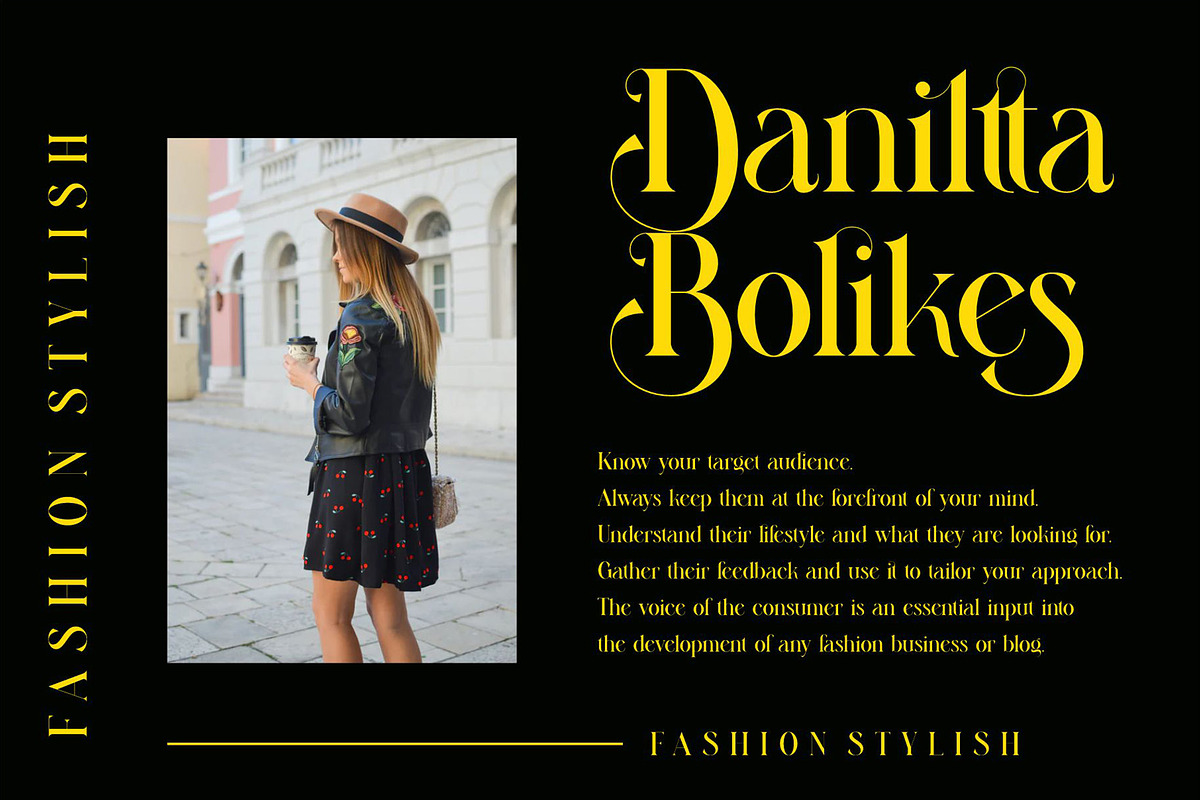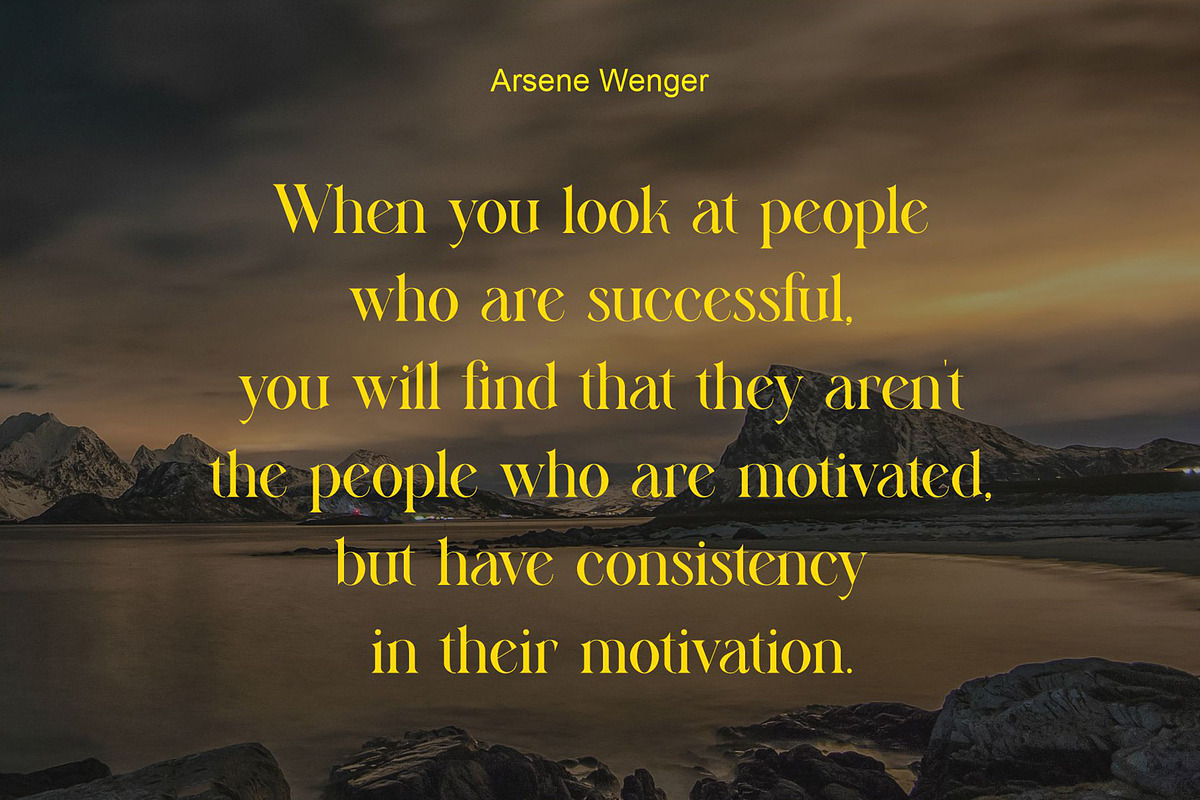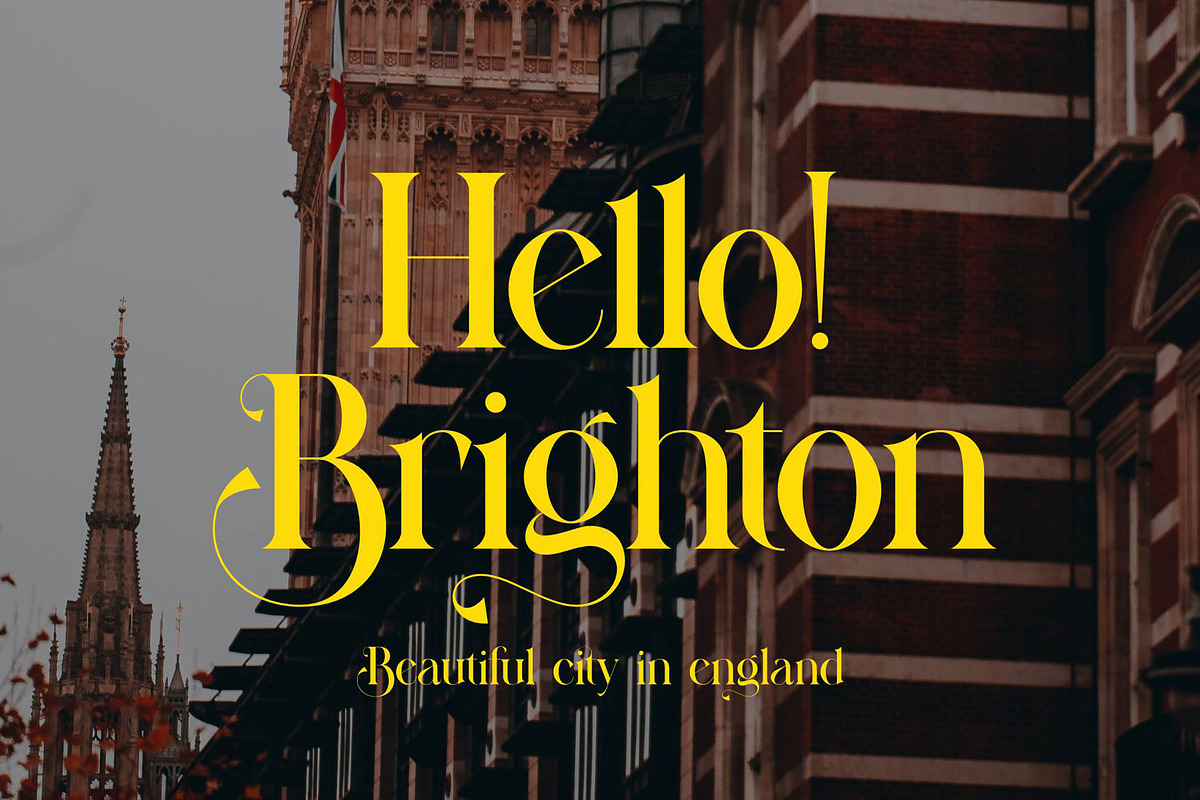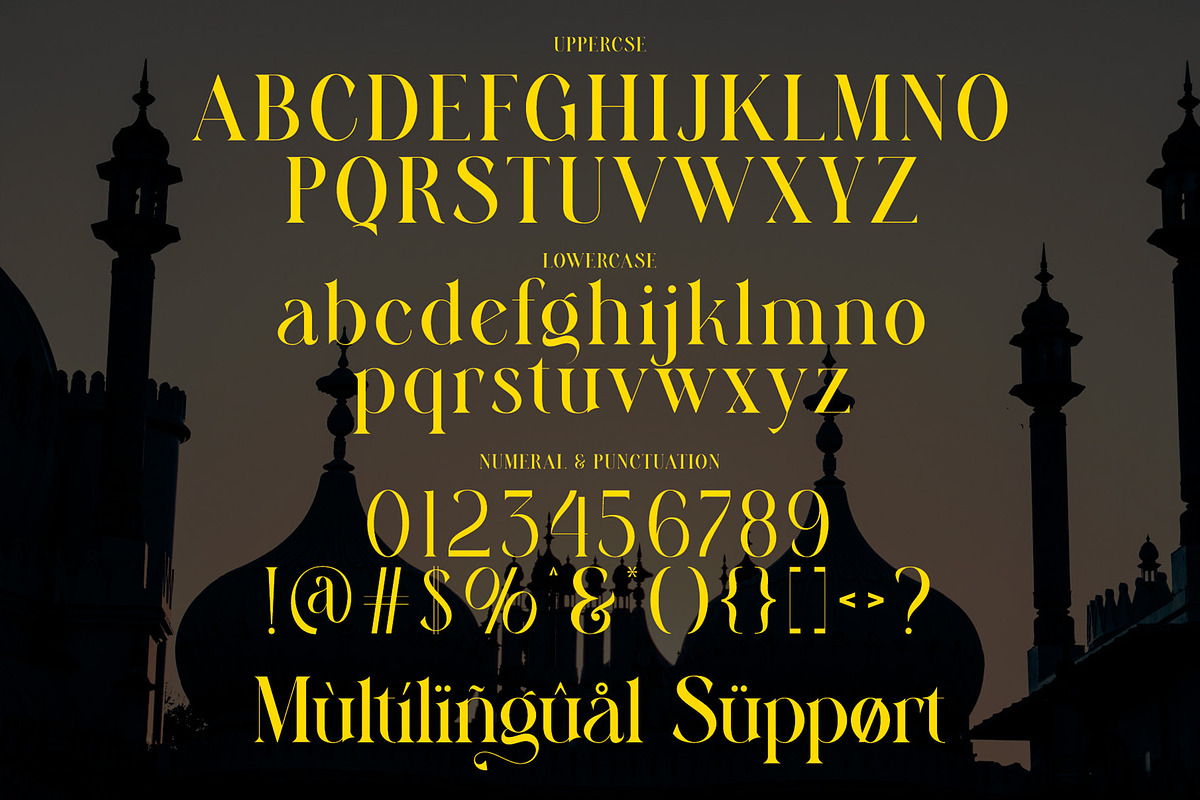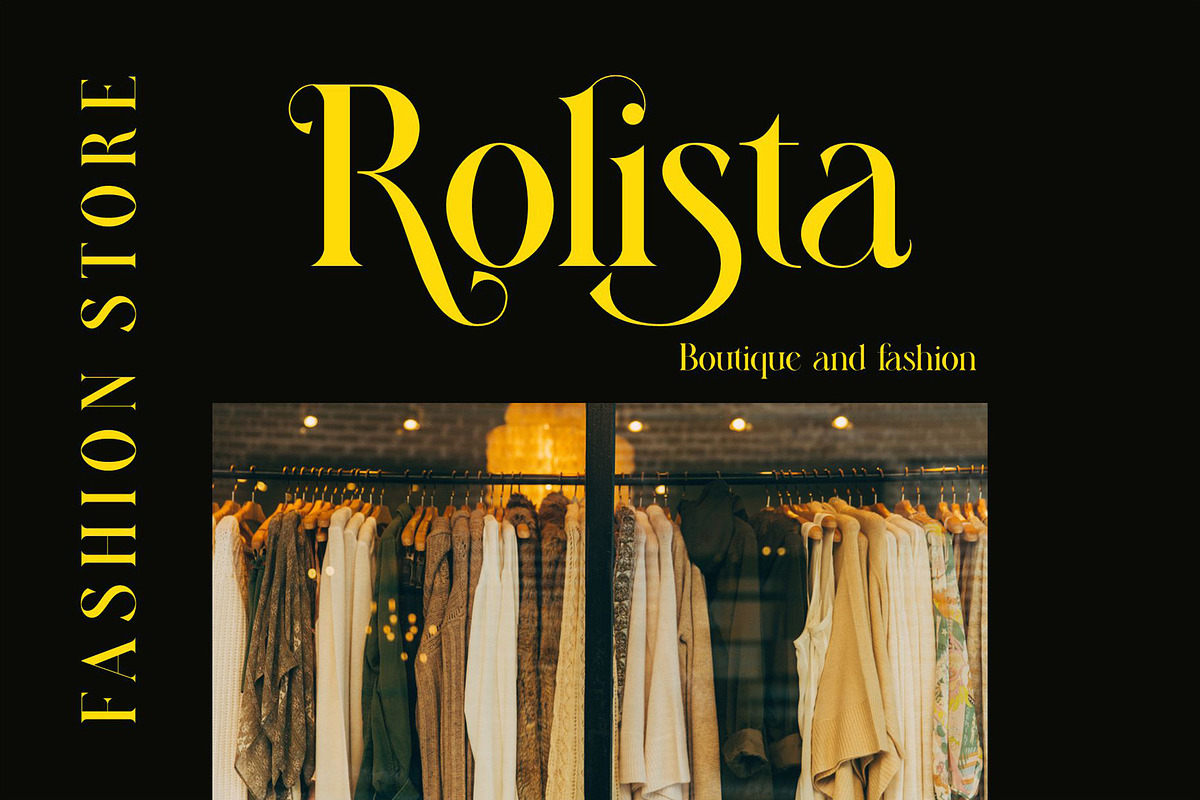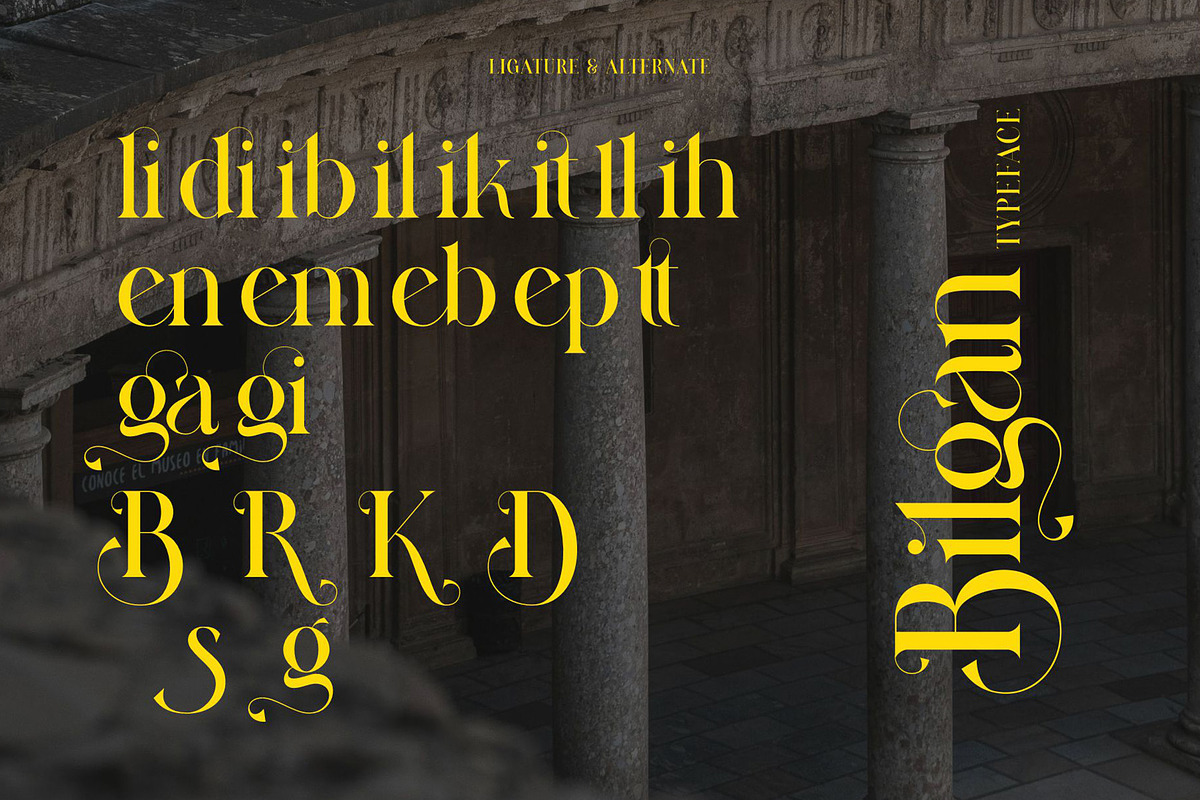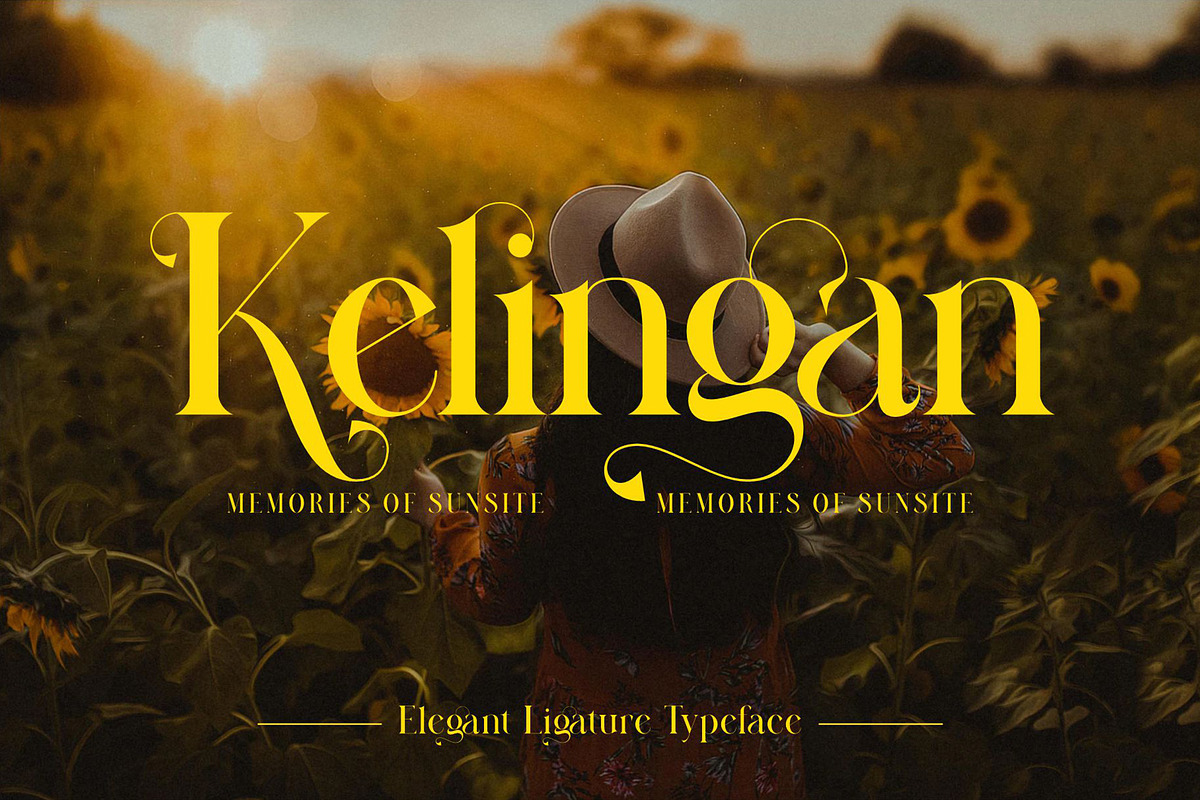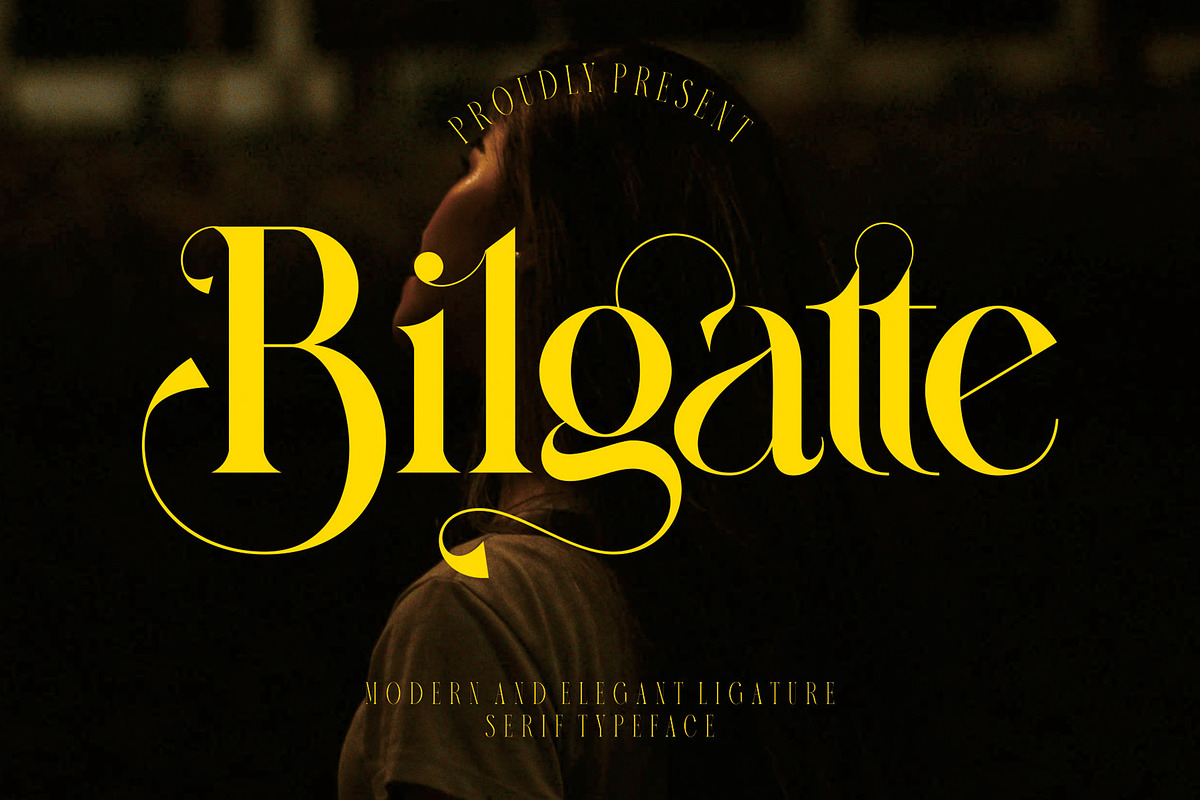
Bilgatte Modern and Elegant Ligature
Bilgatte is a refined serif typeface featuring beautiful ligatures, offering a unique blend of sophistication and readability. Its carefully crafted letterforms, coupled with stylish ligatures, create smooth connections between characters, adding a touch of elegance to any design. Bilgatte versatile style makes it suitable for a wide range of design needs, from luxurious branding and editorial layouts to modern websites and high-end invitations. Whether used for headlines, logos, or body text, Bilgatte ensures that your message is delivered with both grace and clarity, making it an ideal choice for projects that require both aesthetic appeal and functionality.